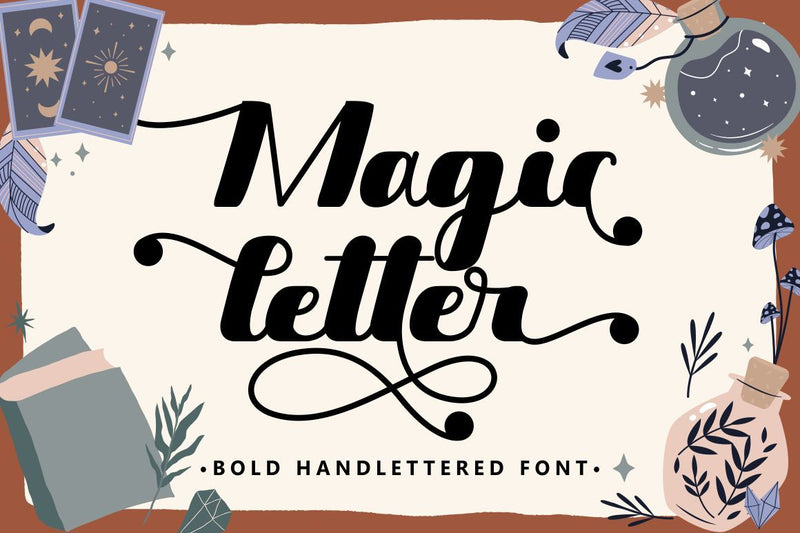
Magic Letter - Bold Hand-lettered Font
Magic Letter is a beautiful bold hand lettered font. This font has a modern and unique font feel, there is feminine style too.
Magic Letter is perfect for logotype creation, lettering compositions, wedding invitations, fashion projects, book design cover, magazines typography, cards, packagings, posters, branding and more.
Come with open type feature like a lot of alternates and also ligatures. Its help you to make beautiful lettering.
This font is also support multi language (áâàäåãæçéêèëíîìïıðñóôòöõøœšúûùüýÿžþÁÂÀÄÅÃÆÇÉÊÈËÍÎÌÏÐÑÓÔÒÖÕØŒŠÚÛÙÜÝŸŽÞ)